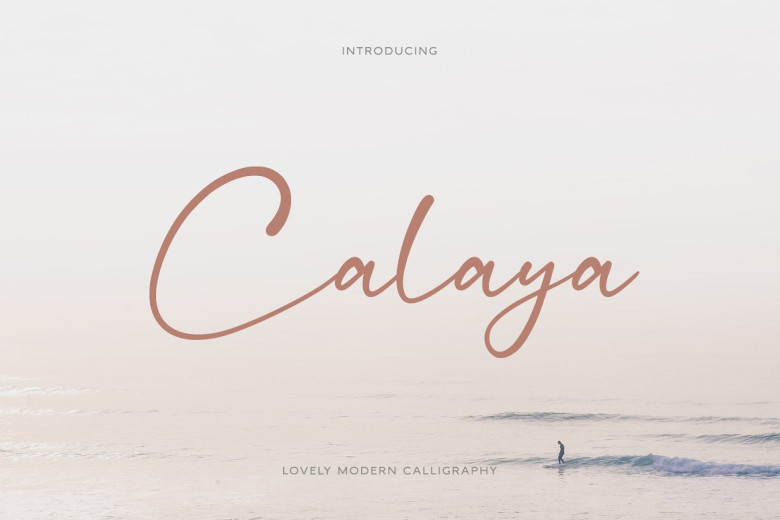
Calaya Font
Calaya is an elegant modern handwritten font which perfectly mimics the expression of handwriting. Perfect for fashion blogs and wedding boutiques alike as well as e-commerce companies!
Calaya Handwritten Script Font